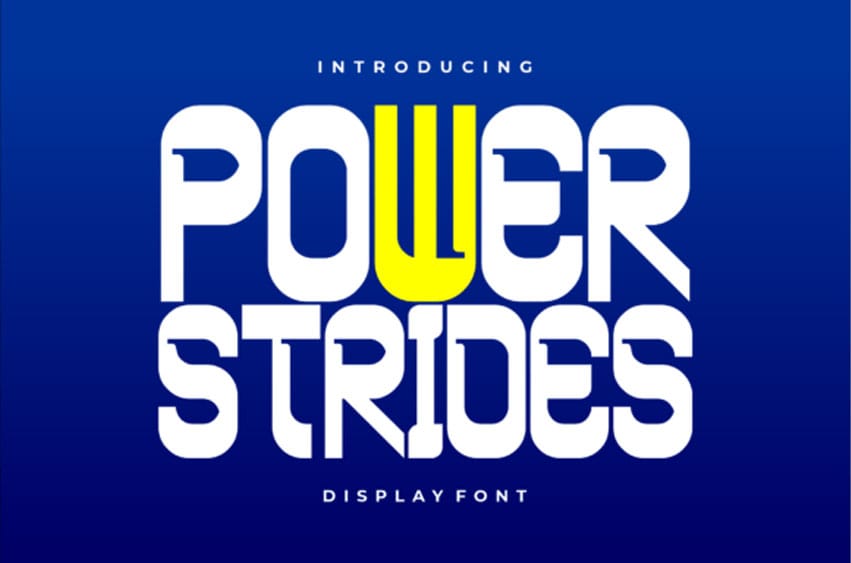
Power Strides Font is a bold and dynamic font designed to embody strength, speed, and energy. With sharp, angular edges and an aggressive stance, it captures the essence of power and movement, making it perfect for sports and racing themes.
The font’s design emphasizes speed and determination, with each letter conveying a sense of forward momentum, ideal for logos, posters, and branding in high-intensity environments. Whether used in motorsports, athletic events, or any fast-paced action, “Power Strides” is a font that commands attention and represents a relentless pursuit of victory.